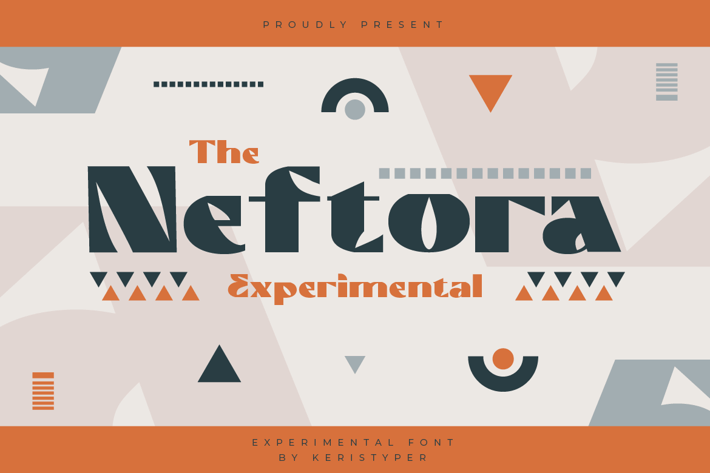
Neftora Font
Neftora is an experimental display font with aesthetic and modern touch inspired by contemporary typography. This font is good for logo design, Social media, Movie Titles, Books Titles, short text even long text letters, and good for your secondary text font with sans or serif.
Standard Uppercase & Lowercase
Multilingual : ä ö ü Ä Ö Ü ß ¿ ¡
Alternate & Ligature